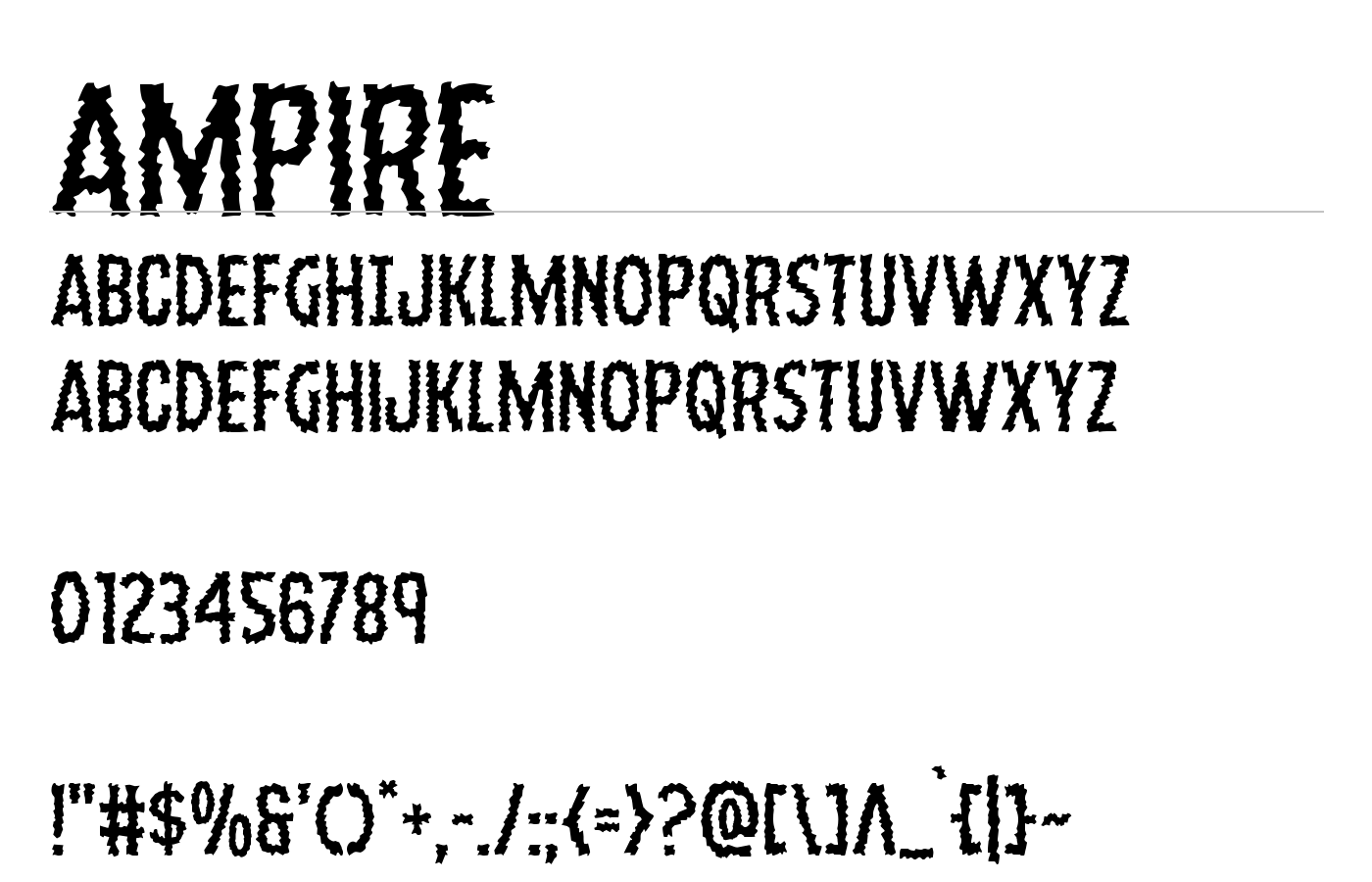
Ampire is a bold, all-caps sans serif font with a jagged, textured edge that gives it a rough, hand-crafted feel. Its condensed and irregular letterforms create a dynamic, eye-catching style perfect for edgy, creative branding or striking headlines. This font works well where a strong urban or grunge vibe is desired, such as posters, logos, or alternative fashion projects.
Ampire Font